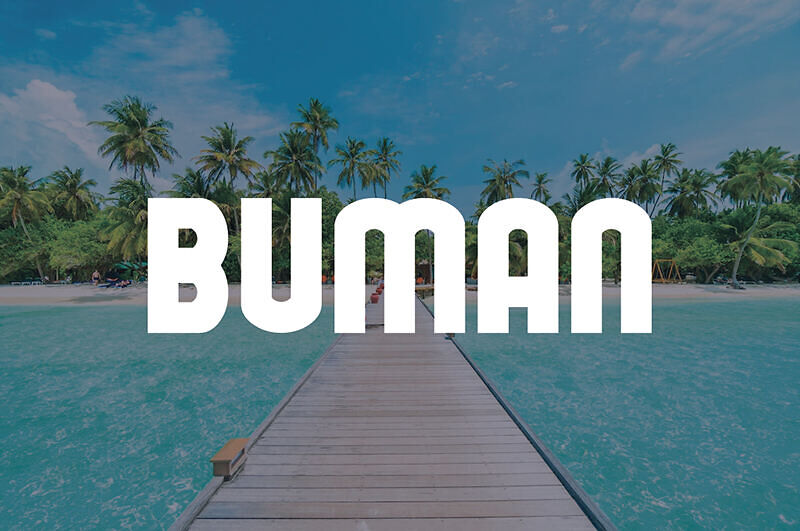
Buman Font
Buman is a versatile sans-serif font designed by Bharata Yoga Permana, featuring two essential styles: Regular and Bold. This makes it suitable for a wide range of design projects, from digital to print.